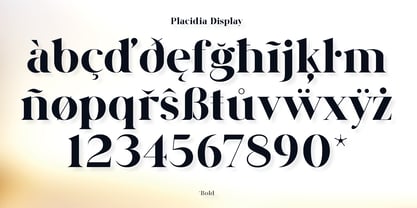
Placidia Display
by Asgeir Pedersen
As the name suggests, Placidia Display is primarily a font for headings and titles, used at large sizes. Try it together with Placidia Sans, or for contrast, another (geometric) sans.
The Placidia fonts, including the Normal and Display versions, are both elegant and stylish, light and strong, all the way in weights from extra light to extra bold and black.
Designers: Asgeir Pedersen
Foundry: Asgeir Pedersen